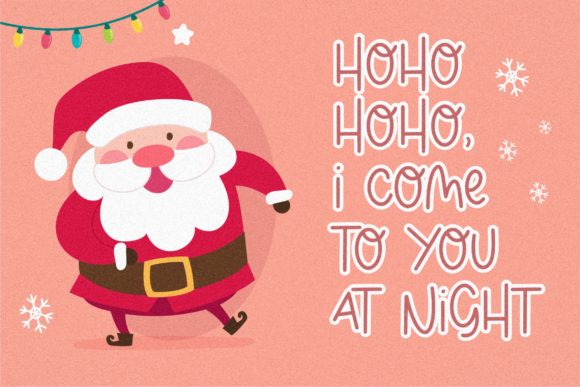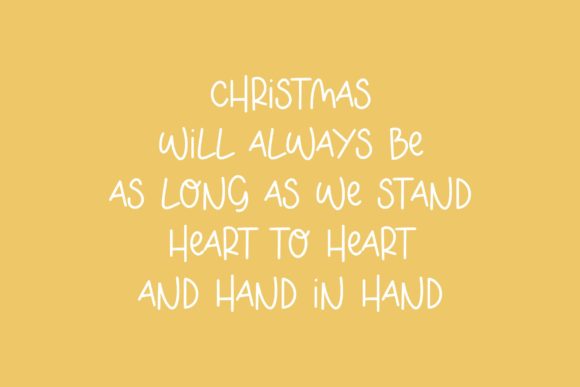
Blinky Season Font
db-ku.com - Script & Handwritten -- Blinky Season is a cute, quirky and fresh handwritten font. It is ideal for holiday-themed greeting cards and for any crafting project that requires a sweet, romantic touch.